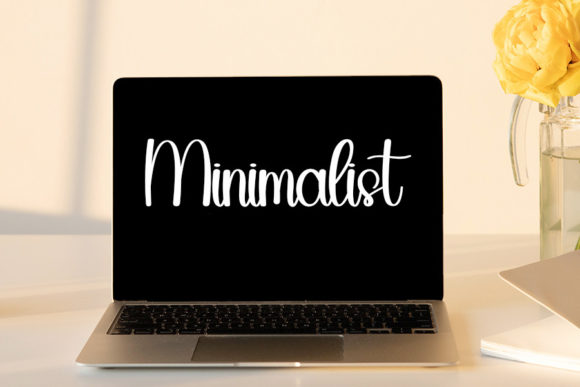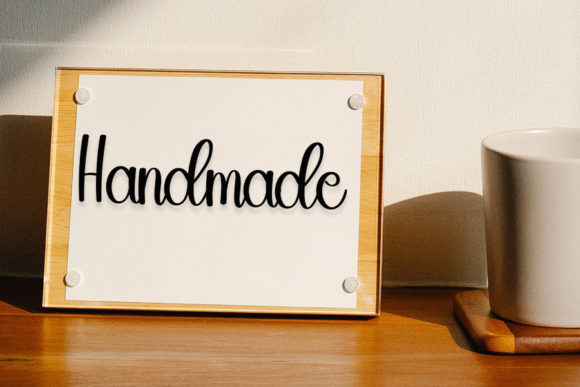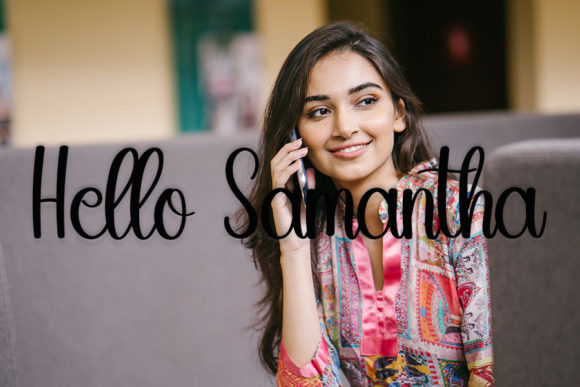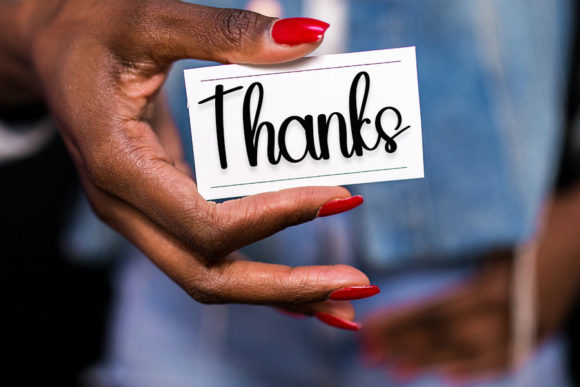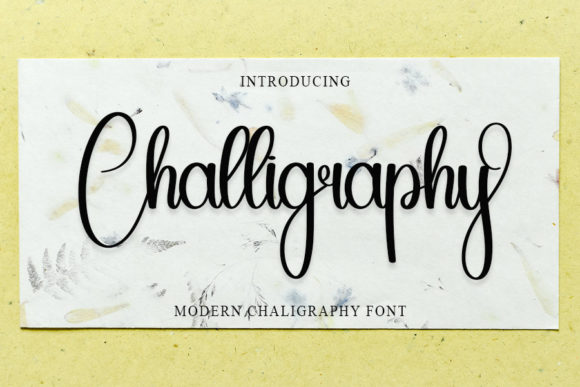
Discover the Elegance of Chaligraphy Font: A Modern Calligraphic Marvel
In the realm of typography, few fonts manage to strike a balance between classic elegance and modern flair. Chaligraphy Font, however, achieves this feat with remarkable finesse. Described as a friendly handwritten font, Chaligraphy is meticulously crafted to capture the hearts of designers and crafters alike. Its design philosophy revolves around blending traditional calligraphic influences with a contemporary twist, making it a versatile and favored choice for various creative projects.
The Essence of Chaligraphy Font
At its core, Chaligraphy Font embodies the warmth and approachability of handwriting, while maintaining a level of sophistication that is hard to achieve with digital typography. This font is not just a collection of letters; it’s an experience that brings a personal touch to any design. Whether you’re working on a branding project, crafting a unique invitation, or simply experimenting with typography, Chaligraphy offers the perfect blend of elegance and friendliness.
Chaligraphy Font boasts several design characteristics that set it apart from other fonts in the calligraphic genre. Some of its notable features include:
• Fluid Strokes: The font exhibits fluid, connected strokes that give it a natural, handwritten feel. This characteristic is crucial in conveying the warmth and personality that digital fonts often lack.
• Contemporary Twist: While Chaligraphy draws heavily from traditional calligraphy, it incorporates modern elements that make it feel fresh and relevant. This blend of old and new ensures that the font is versatile enough for a wide range of applications.
• Legibility: Despite its intricate and artistic design, Chaligraphy maintains a high level of legibility. This makes it an excellent choice for body text, headings, and any other content where clarity is paramount.
• Emotional Connection: The font’s friendly and approachable nature helps create an emotional connection with the reader. This is particularly valuable in designs where building a rapport with the audience is crucial.
Applications of Chaligraphy Font
The versatility of Chaligraphy Font makes it suitable for a myriad of design projects. Here are some of the most popular applications:
• Branding and Logotypes: Chaligraphy’s unique blend of elegance and friendliness makes it an excellent choice for logos and brand identities that aim to convey sophistication and approachability.
• Wedding and Event Invitations: The font’s calligraphic beauty shines in wedding invitations, event announcements, and other formal or semi-formal communications.
• Packaging and Product Design: Chaligraphy can add a touch of luxury and personality to product packaging, making it stand out on store shelves.
• Digital and Print Media: Whether it’s for a website, blog, magazine, or advertisement, Chaligraphy Font can elevate the visual appeal of any content.
Tips for Using Chaligraphy Font
To make the most of Chaligraphy Font, consider the following tips:
• Pair with Contrasting Fonts: Combine Chaligraphy with simpler, sans-serif fonts to create visual contrast and hierarchy in your designs.
• Experiment with Colors: While Chaligraphy looks stunning in traditional black and white, don’t be afraid to experiment with colors that complement its elegant feel.
• Adjust Letter Spacing: Fine-tune the letter spacing to ensure optimal readability and aesthetic appeal, especially in longer texts.
Font Name Chaligraphy Font
Author K_IN Studio
Chaligraphy Font is a remarkable addition to the world of typography, offering a unique blend of traditional calligraphic elegance and modern friendliness. Its versatility, legibility, and emotional resonance make it a favorite among designers and crafters. Whether you’re looking to add a touch of sophistication to your branding, create beautiful invitations, or simply explore the art of typography, Chaligraphy Font is an excellent choice. With its wide range of applications and design possibilities, Chaligraphy is poised to become a staple in the creative toolkit of anyone who values the beauty and power of handwritten typography.